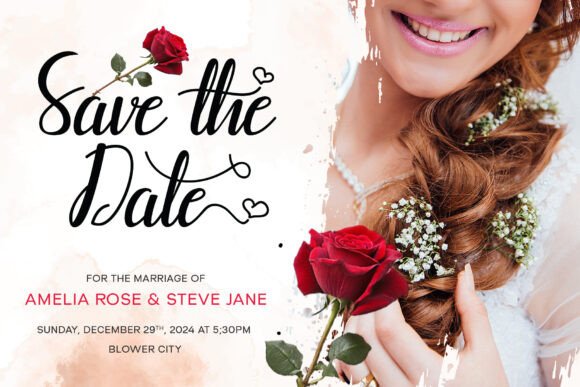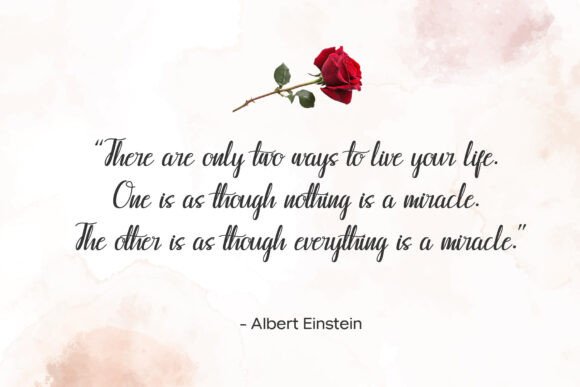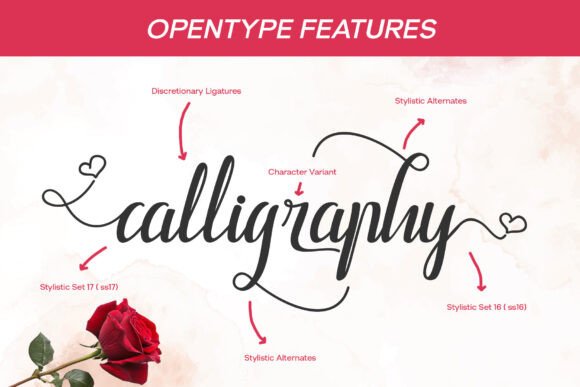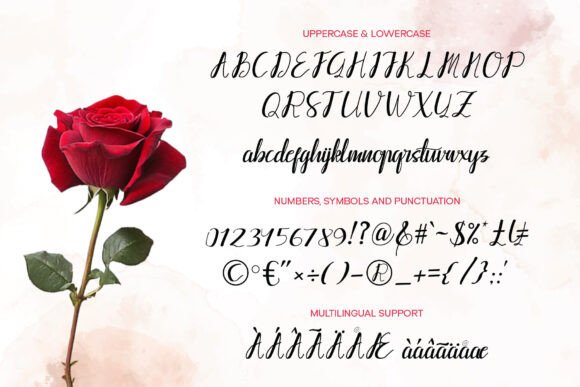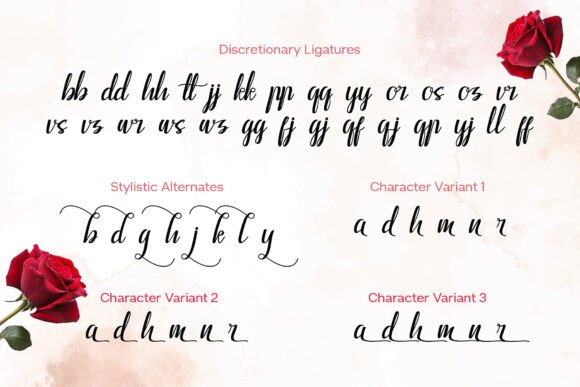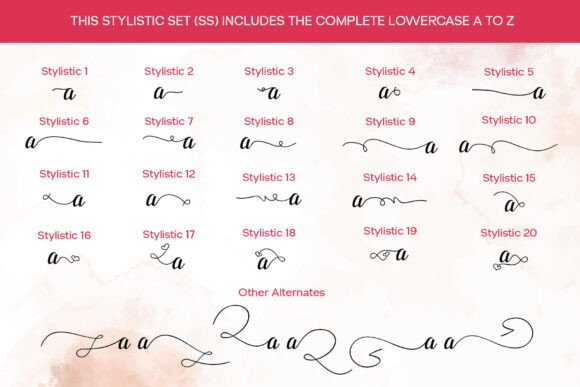
Bapelna Script Font: Elevate Your Designs with Elegance and Sophistication
In the world of typography, a font can make or break a design. With the right font, you can add a touch of elegance, sophistication, and personality to your creative projects. If you’re a designer or crafter looking for a modern handwritten font that can elevate your designs, look no further than Bapelna Script. In this article, we’ll explore the features and benefits of Bapelna Script, and why it’s the perfect choice for a wide range of creative projects.
Introducing Bapelna Script
Bapelna Script is a modern handwritten font that boasts over 1000 unique glyphs, including alternates and ligatures. This extensive character set allows you to create complex and beautiful designs that are sure to impress. The font features bold and elegant swash strokes at the beginning and end of letters, giving it a distinct flair that’s perfect for adding a touch of sophistication to any design.
Key Features of Bapelna Script
- Over 1000 unique glyphs: Bapelna Script features an extensive character set that includes alternates and ligatures, allowing you to create complex and beautiful designs.
- Bold and elegant swash strokes: The font’s swash strokes add a touch of elegance and sophistication to any design, making it perfect for high-end branding and creative projects.
- Modern handwritten feel: Bapelna Script has a modern handwritten feel that’s perfect for designers and crafters looking for a font that’s both stylish and approachable.
- Perfect for a wide range of creative projects: From wedding invitations to quotes, lettering, and fashion branding, Bapelna Script is the perfect choice for any creative project that requires a touch of elegance and sophistication.
Why Choose Bapelna Script?
So why choose Bapelna Script over other fonts? Here are just a few reasons why this font stands out from the crowd:
- Versatility: Bapelna Script is a versatile font that can be used for a wide range of creative projects, from wedding invitations to fashion branding.
- Elegance: The font’s bold and elegant swash strokes add a touch of sophistication to any design, making it perfect for high-end branding and creative projects.
- Uniqueness: With over 1000 unique glyphs, Bapelna Script is a font that’s sure to stand out from the crowd and add a touch of personality to your designs.
Using Bapelna Script in Your Designs
So how can you use Bapelna Script in your designs? Here are a few ideas to get you started:
- Wedding Invitations: Bapelna Script is perfect for wedding invitations, adding a touch of elegance and sophistication to your designs.
- Quotes and Lettering: The font’s modern handwritten feel makes it perfect for quotes and lettering projects.
- Fashion Branding: Bapelna Script is a great choice for fashion branding, adding a touch of style and sophistication to your designs.
In conclusion, Bapelna Script is a modern handwritten font that’s perfect for designers and crafters looking for a touch of elegance and sophistication in their designs. With its extensive character set, bold and elegant swash strokes, and modern handwritten feel, this font is sure to elevate your designs and add a touch of personality to your creative projects. Whether you’re working on a wedding invitation, quote, lettering project, or fashion branding campaign, Bapelna Script is the perfect choice.